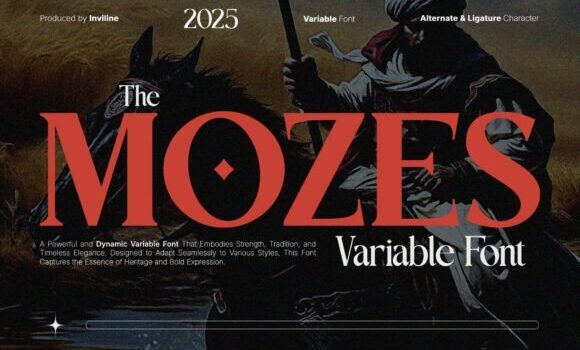
Mozes Regular Font – Free Download Introduction to Mozes Regular Font Mozes is a powerful variable serif font that blends bold expression with classical elegance. 📸 Preview Gallery 6 images 📌 Product Name Mozes Regular Font 👤 Author Inviline 📂